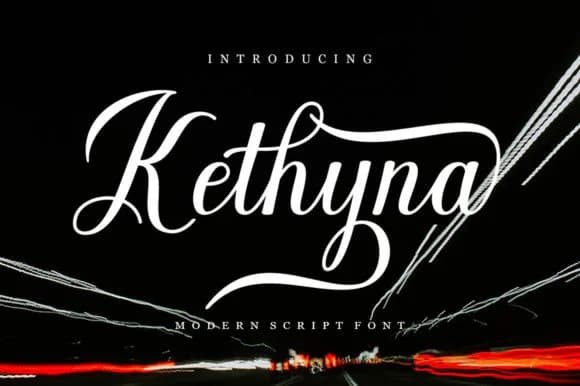
Kathyna Script Font by STRAIGHT.CO is a flowing script that merges classical elegance with contemporary design sensibilities. This typeface features sweeping letterforms that evoke both sophistication and warmth, making it ideal for projects where refinement and personality must coexist. The consistent stroke weight maintains excellent readability while preserving the font's distinctive character throughout various applications.
Whether you're designing wedding invitation suites, crafting luxury cosmetics packaging, or creating boutique greeting card designs, Kathyna brings a polished, handcrafted quality that resonates with discerning audiences. The font works particularly well for upscale product labeling and event announcement cards where the aesthetic needs to communicate both artistry and professionalism. The fluid letterforms adapt beautifully to both large display settings and smaller body text applications, ensuring versatility across your projects.
Beyond traditional packaging and stationery, Kathyna excels in logo work for artisanal brands, boutique retail identities, and social media content that demands sophisticated visual communication. The typeface brings authentic character to handmade product branding and luxury brand applications. The versatility of this script makes it a valuable addition to any designer's library, particularly for professionals seeking a refined typeface with genuine personality and depth. Get Kathyna Script Font on Creative Fabrica and unlock this elegant script for your next creative project.
Kathyna Script Font is a script font that shines as a display or heading face. Pair it with a clean sans-serif or serif font for body text β the contrast creates a clear hierarchy while the two styles stay balanced and easy to read.